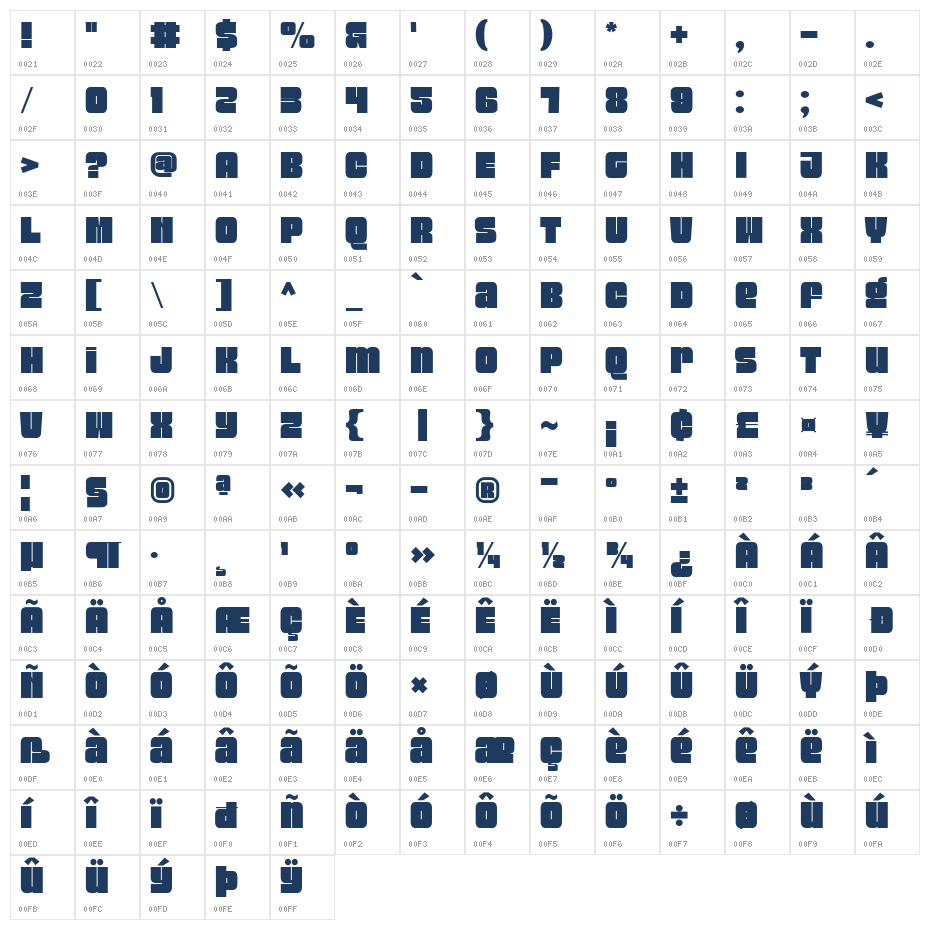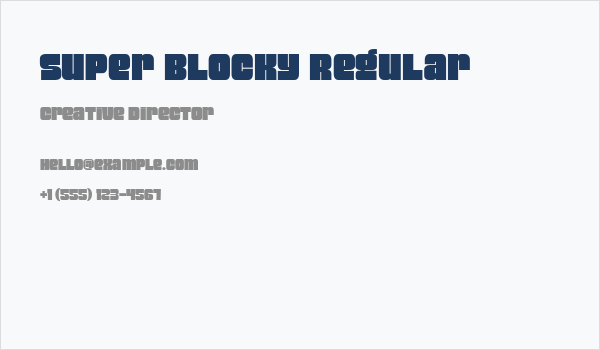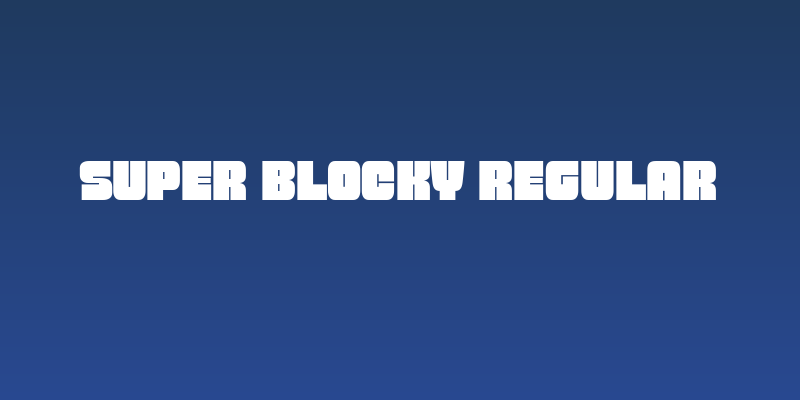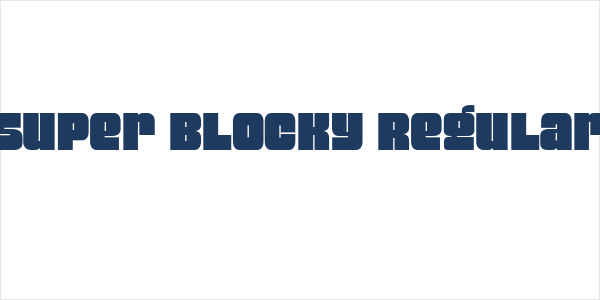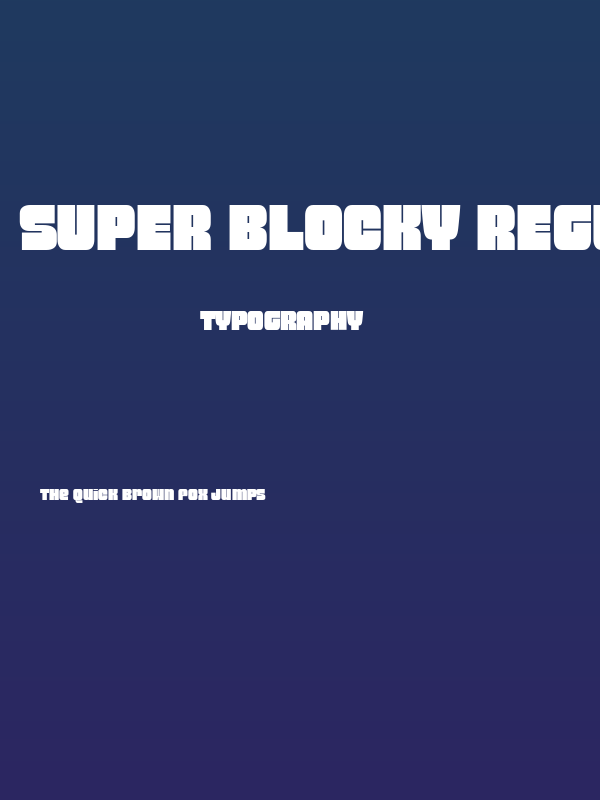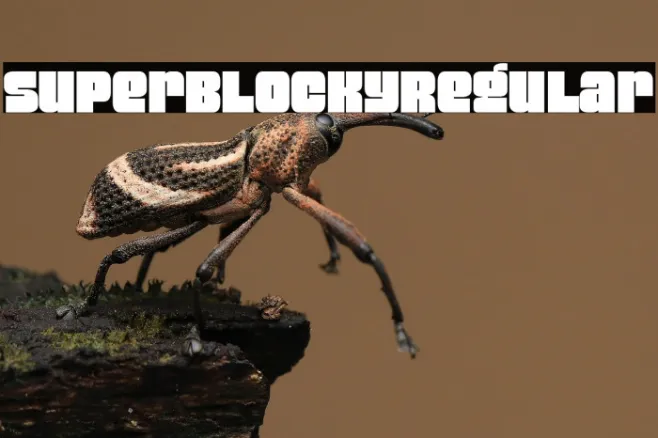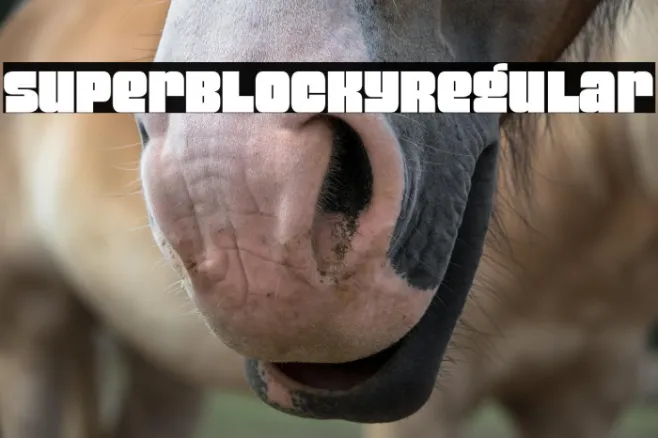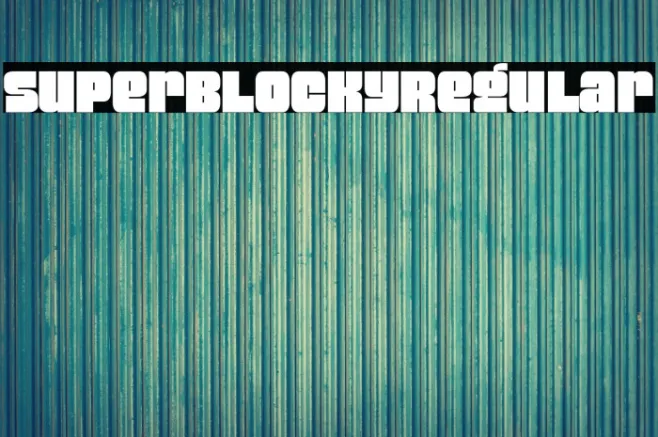
Super Blocky Regular Font
Super Blocky Regular Description
Bold, blocky, geometric sans-serif font with a strong, modern appearance. The characters are wide with uniform stroke widths and minimal contrast, giving a sturdy and impactful look.
| Overall Style | Modern, Geometric, Bold |
| Use Case | Headlines, Posters, Logos, Branding |